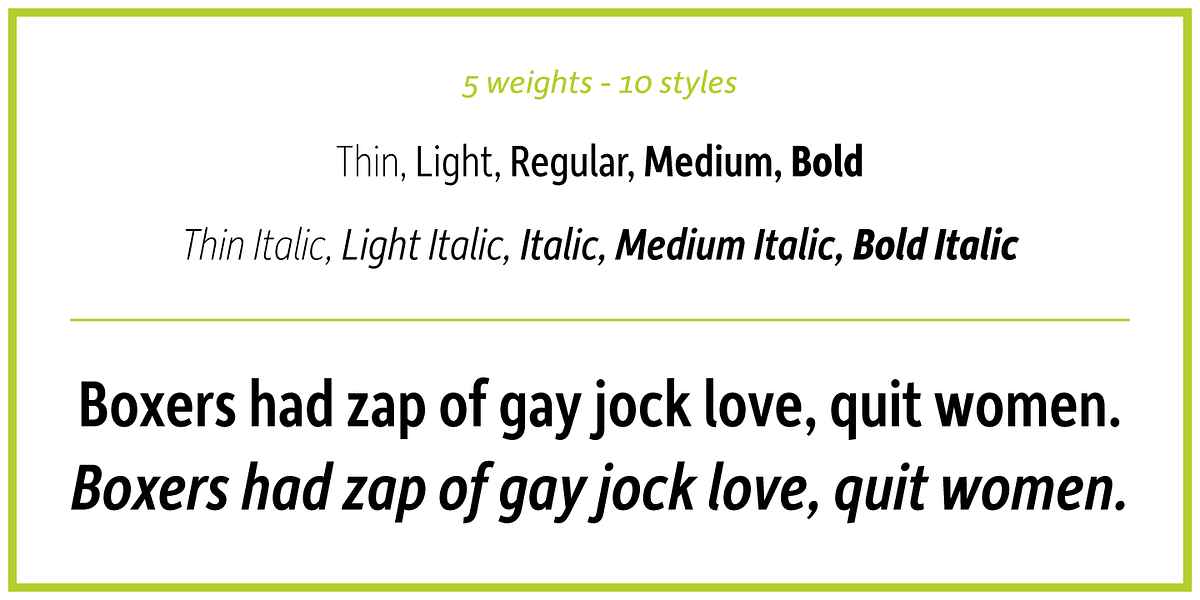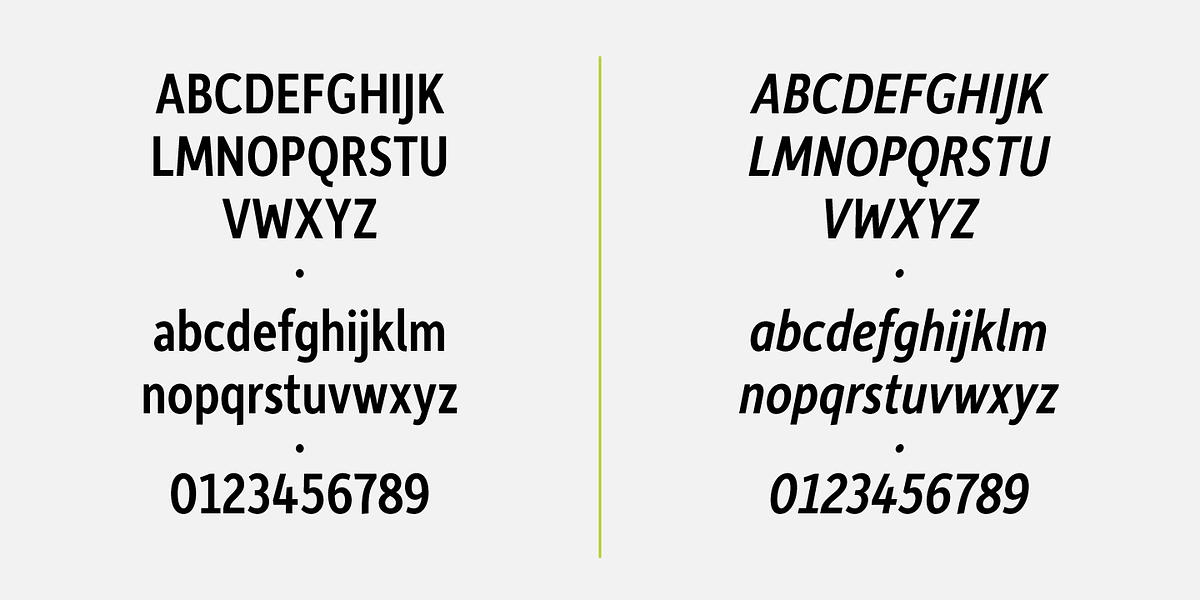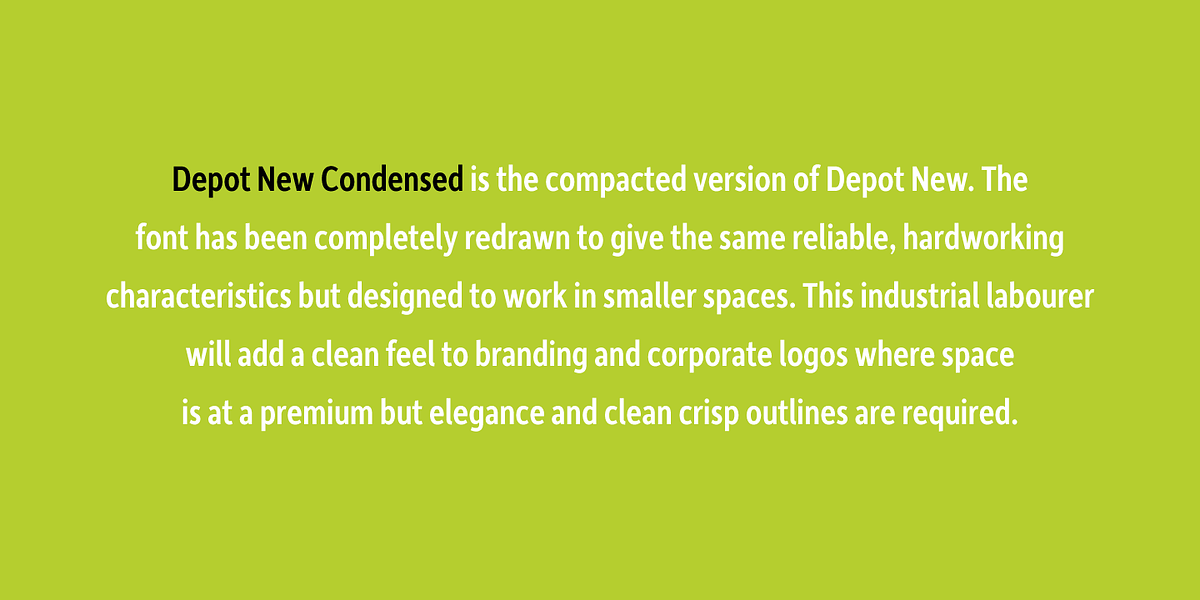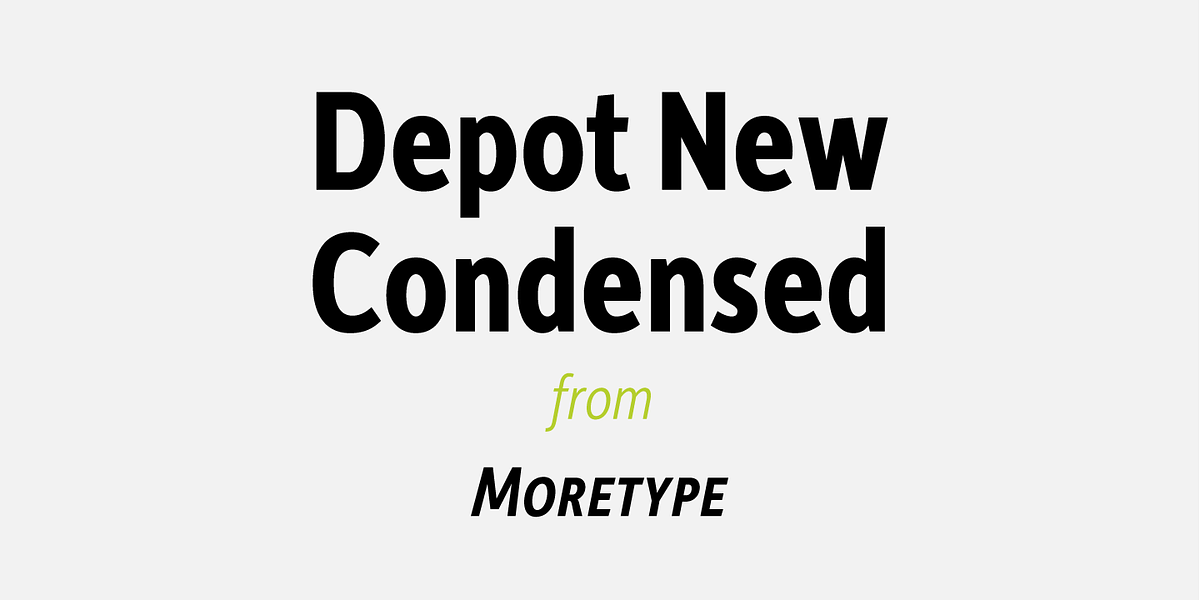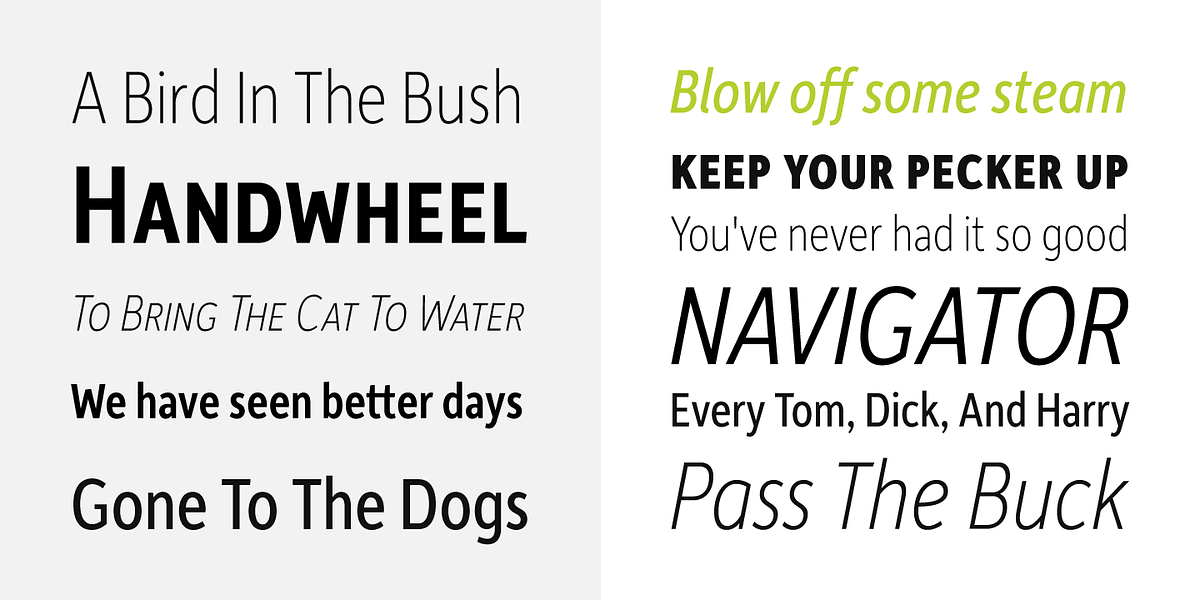
Depot New Condensed
Depot New Condensed is a neo-grotesque sans serif font designed for space efficiency. It maintains the sturdy and reliable feel of the original Depot New but in a condensed width, making it suitable for headlines, titling, and even paragraph text within corporate settings.